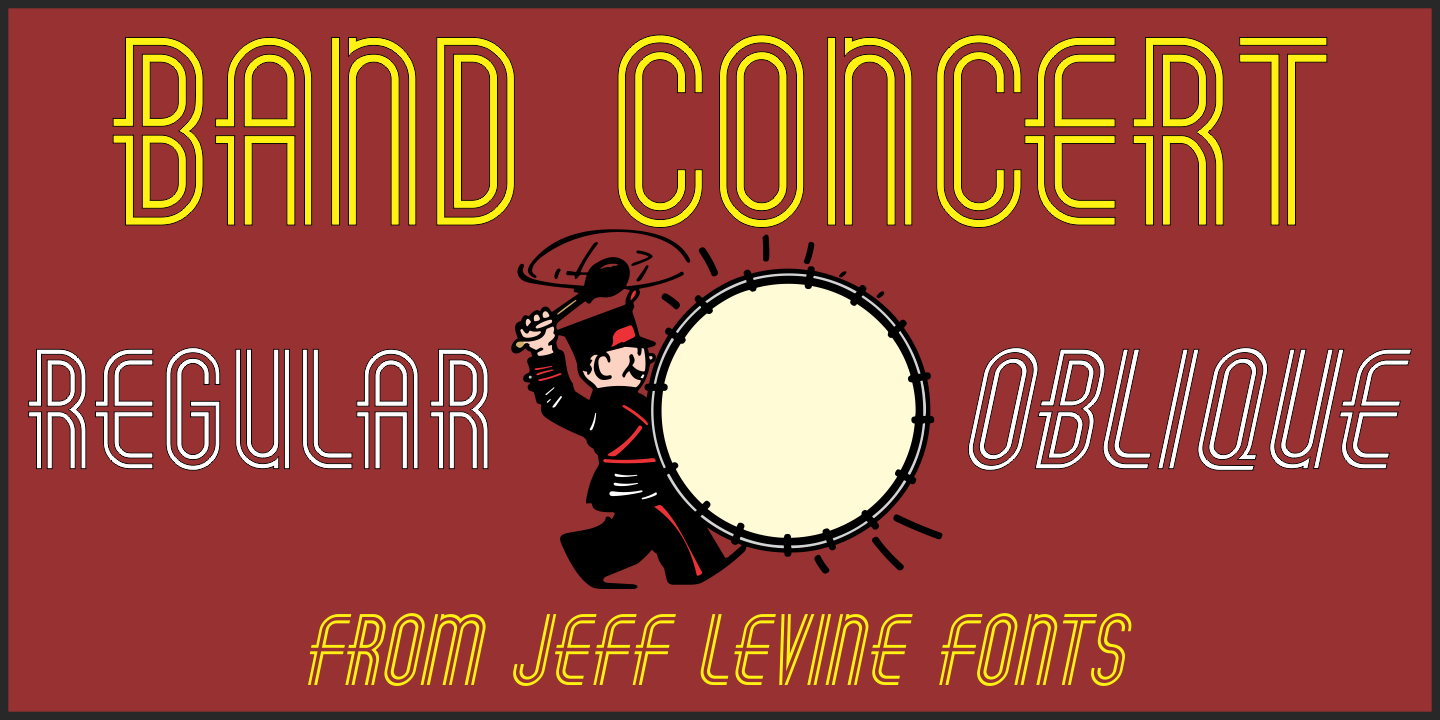
The Band Concert JNL Font is exceptionally well-suited for projects that evoke a vintage, retro, or small-town Americana aesthetic. Its often bold, condensed, and slightly quirky sans-serif design, reminiscent of classic signage, fair posters, or old-time show bills, makes it an excellent choice for event promotions, festival branding, and nostalgic packaging design. It's ideal for diner menus, vintage-themed advertisements, and local community outreach materials where a friendly yet impactful presence is desired. Furthermore, consider Band Concert JNL Font for theater posters, historical documentaries, and any design aiming to capture the spirit of classic American entertainment or local gatherings.
What makes the Band Concert JNL Font so exciting is its inherent ability to transport viewers back to a simpler, more charming era. It often features a sturdy yet approachable demeanor, with letterforms that feel both handcrafted and timeless. This characteristic allows it to communicate a sense of community, tradition, and wholesome fun, making your message resonate with warmth and authenticity. It’s a font that doesn't just display text; it tells a story of bygone days, adding a layer of charming nostalgia and welcoming appeal to any creative endeavor. Its distinctive aesthetic ensures your work will stand out with a memorable and heartfelt presence.
The Band Concert JNL Font family typically focuses on delivering its strong, unique stylistic elements. You'll often find a powerful Regular weight, which might be complemented by specific bold or condensed variations to enhance its visual impact. Due to its display nature and vintage inspiration, the family might also include unique alternates or stylistic sets that offer variations in its slightly irregular charm, providing additional creative options for crafting truly unique and impactful typographic compositions reminiscent of classic hand-lettered signs.